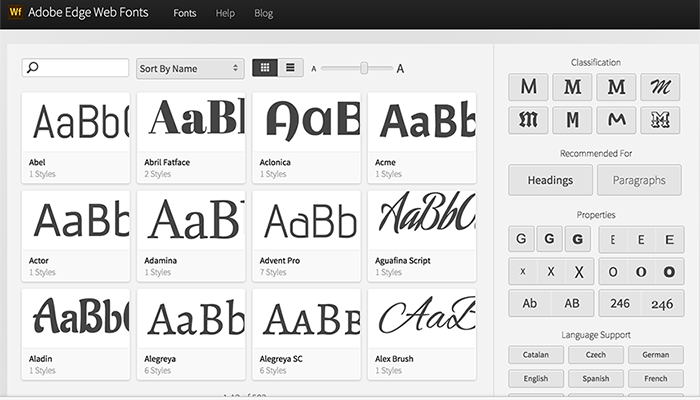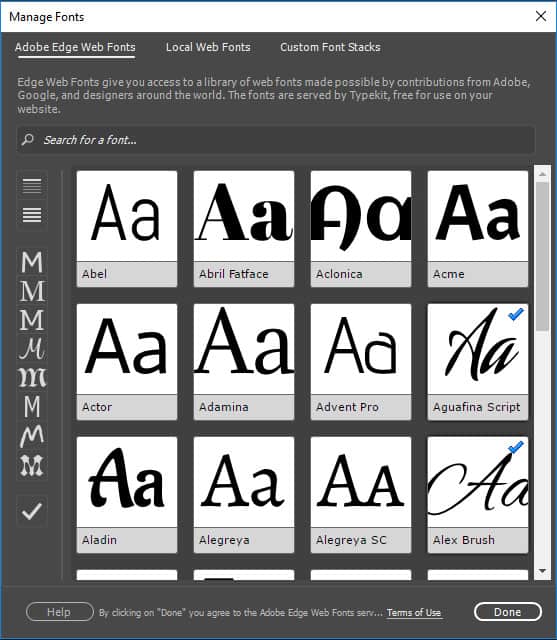
Adobe Free Web Fonts. If you love free web fonts (seriously, who doesn’t?), adobe has come up with a special treat for you — edge web fonts, an altogether new, typekit served, free web fonts service. The 40 best fonts on adobe fonts typekit for 2019 typewolf cool fonts font pairing fonts.
This font scales well, as it can be easily read regardless if it’s large or small. Use of the service is free and unlimited, see the terms for details' and is a font host in the development category. If you have photoshop, then you will have access to many free adobe fonts.
Making The Web More Beautiful, Fast, And Open Through Great Typography
As Part Of Our Efforts To Make Web Fonts More Broadly Accessible And Easy To Use, We’re Excited To Introduce Adobe Edge Web Fonts, A New Free Web Font Service.
You Do Not Need An Account, Nor Do You Need To Configure A Font Kit, Making It Much Easier And Faster.
Another one of the best web fonts to choose from is montserrat. The millennial demographic tends to gravitate toward this bold and youthful font. Edge web fonts features hundreds of web fonts, including a sampling of fonts from the adobe library as well as a large collection of open source fonts.